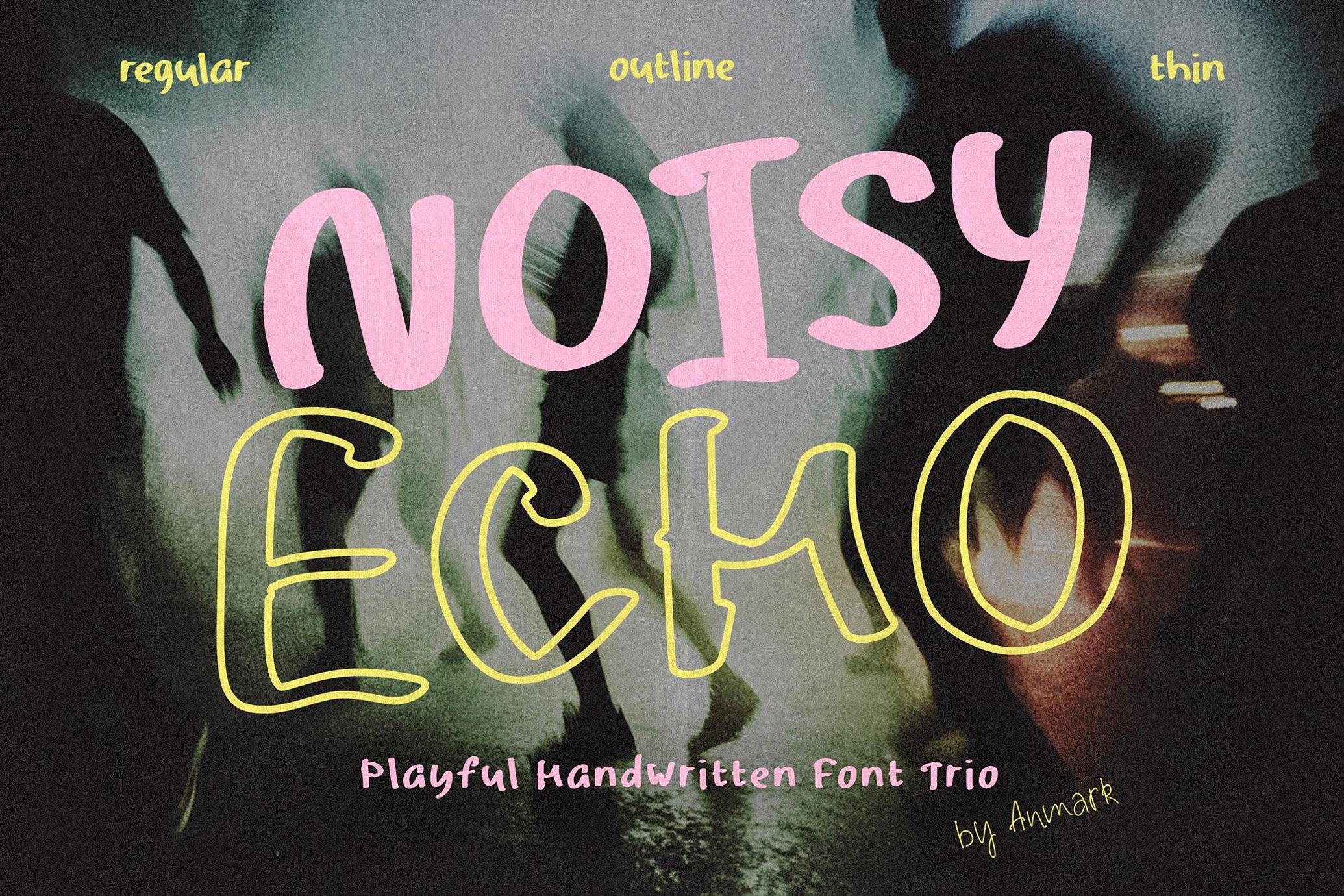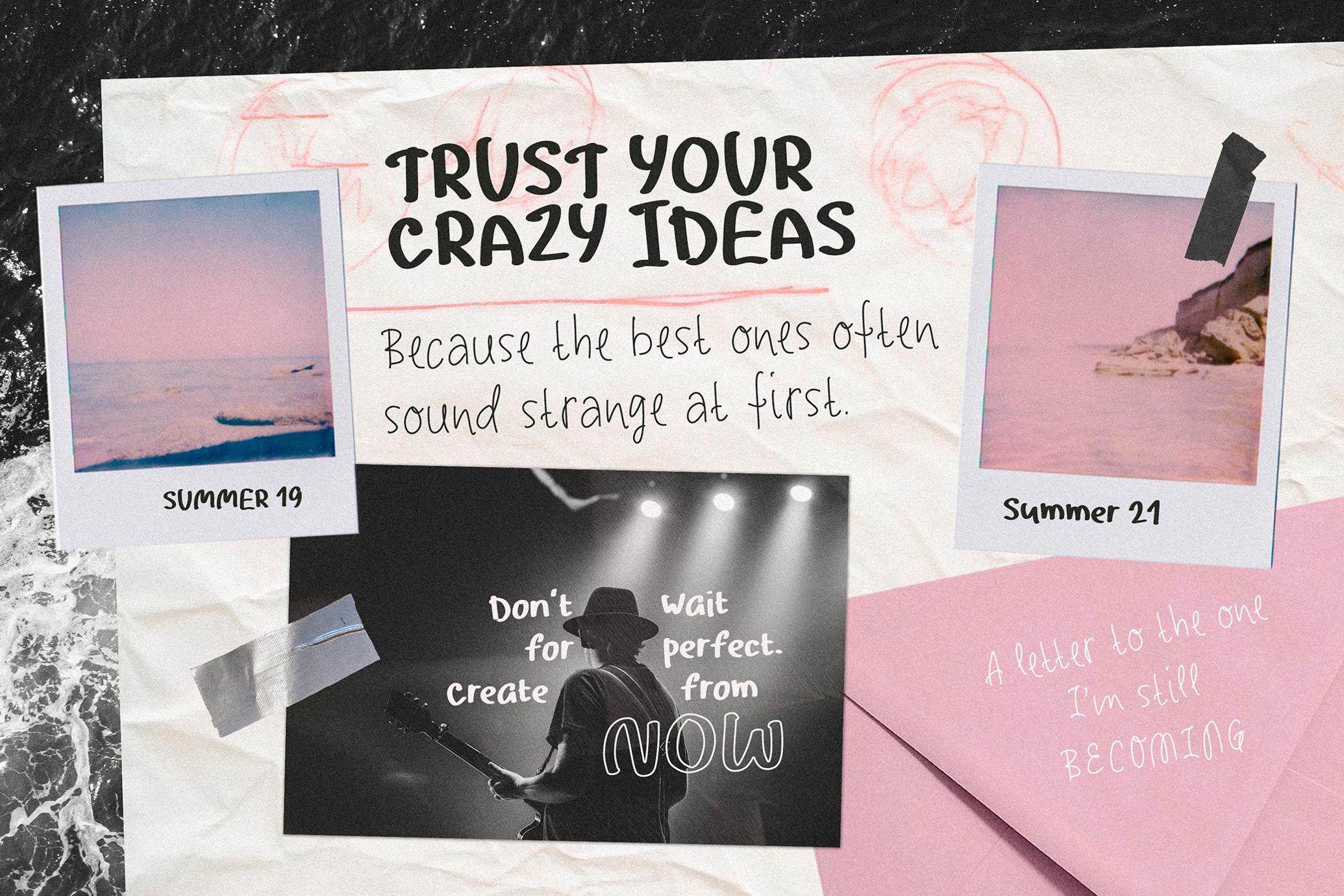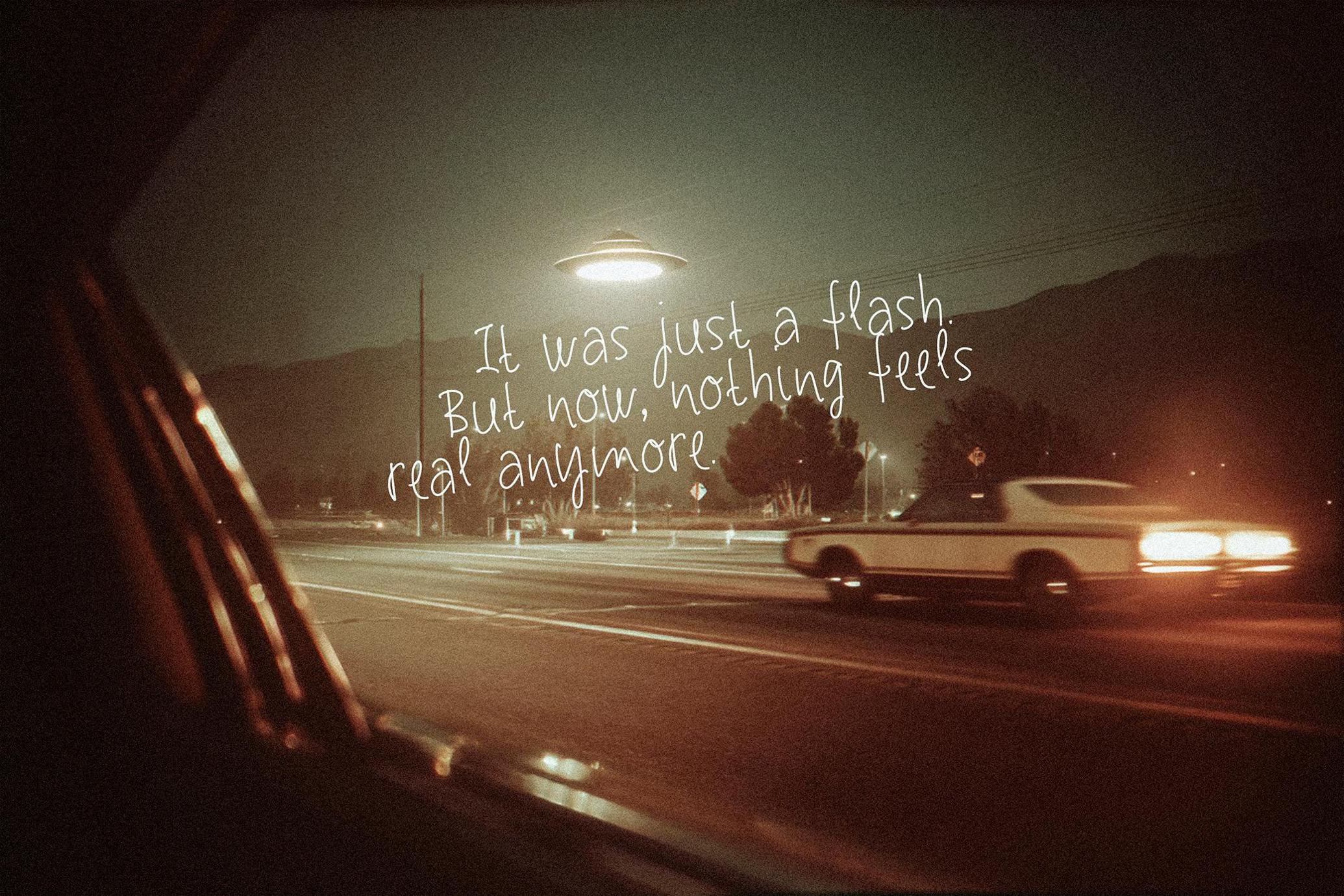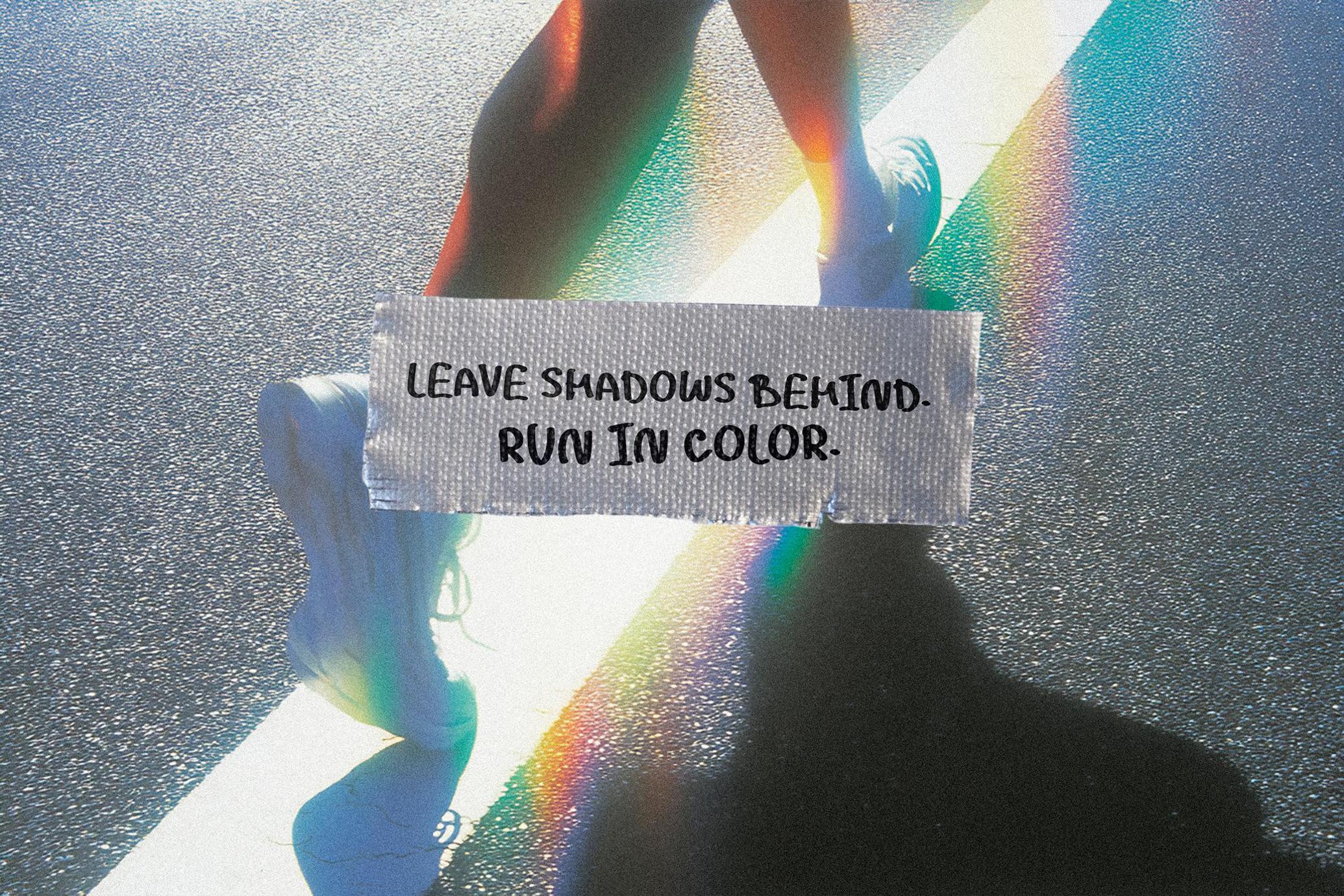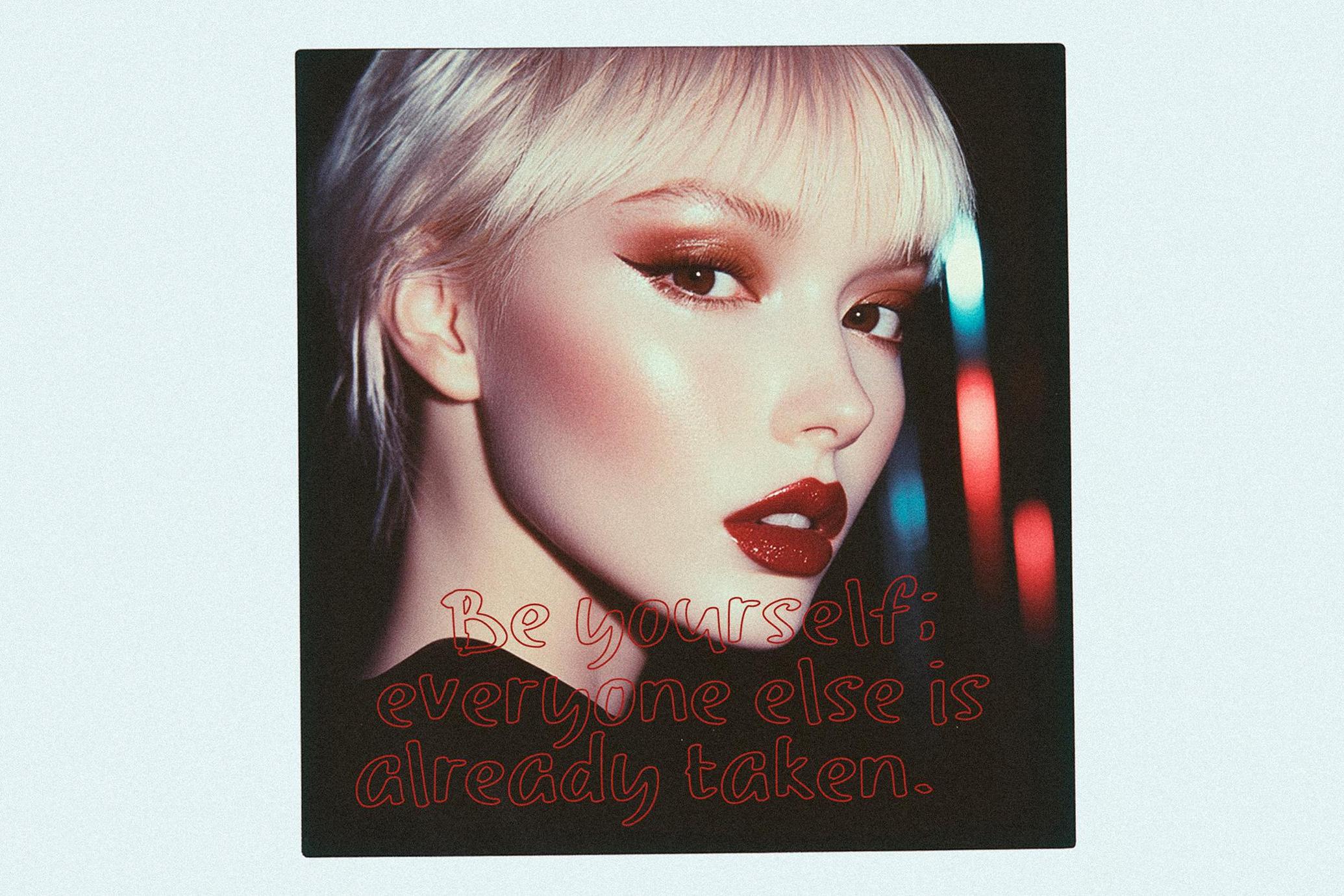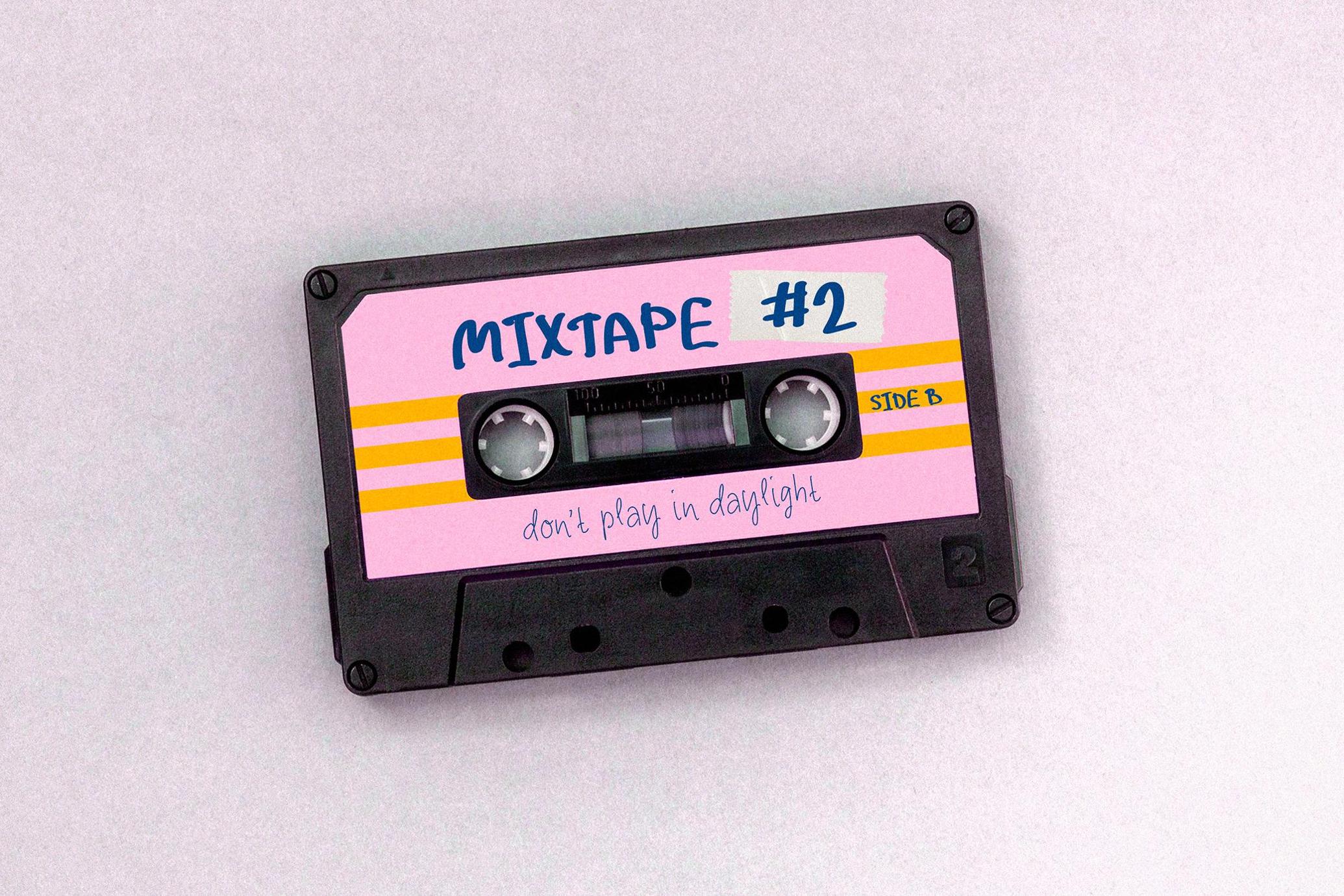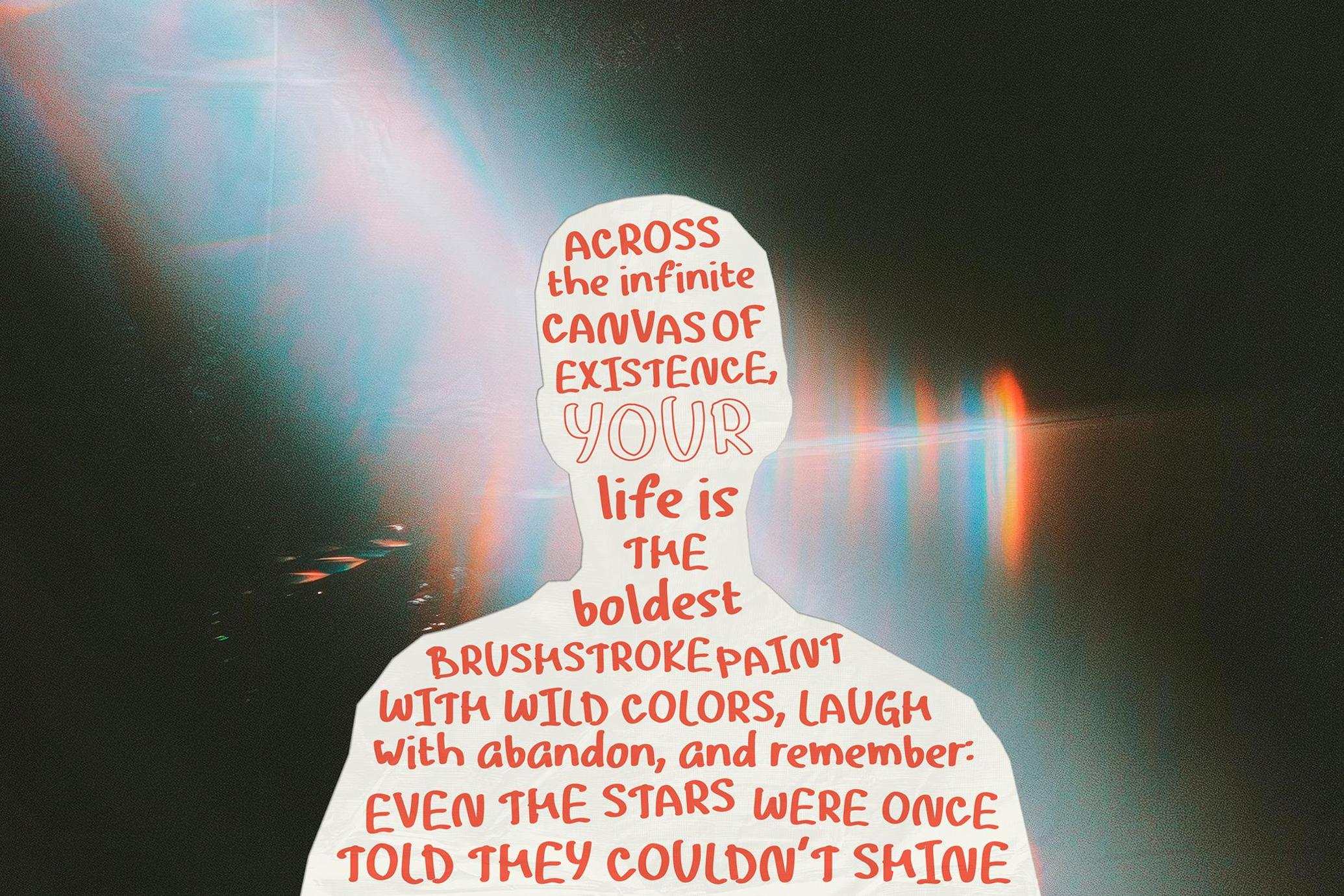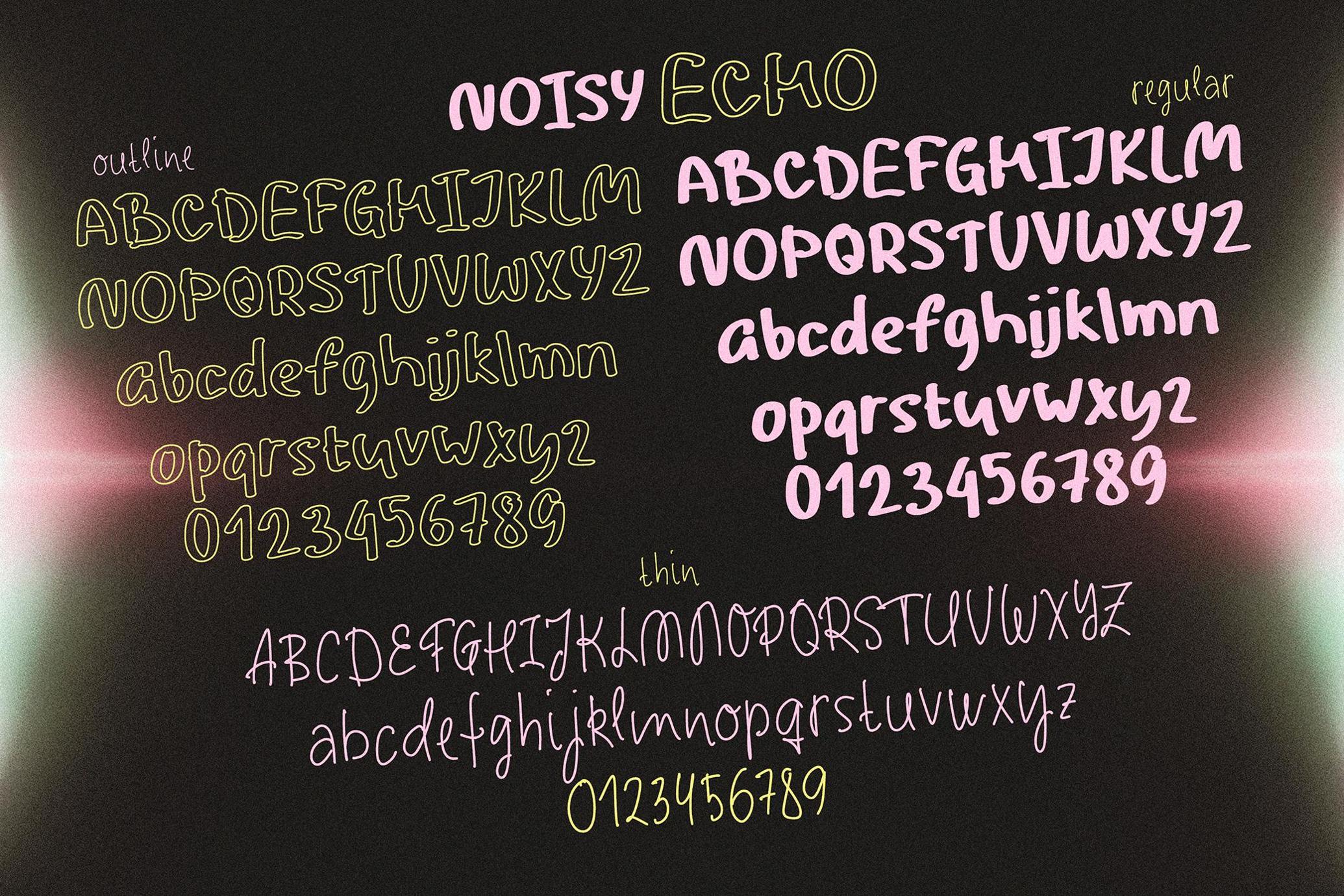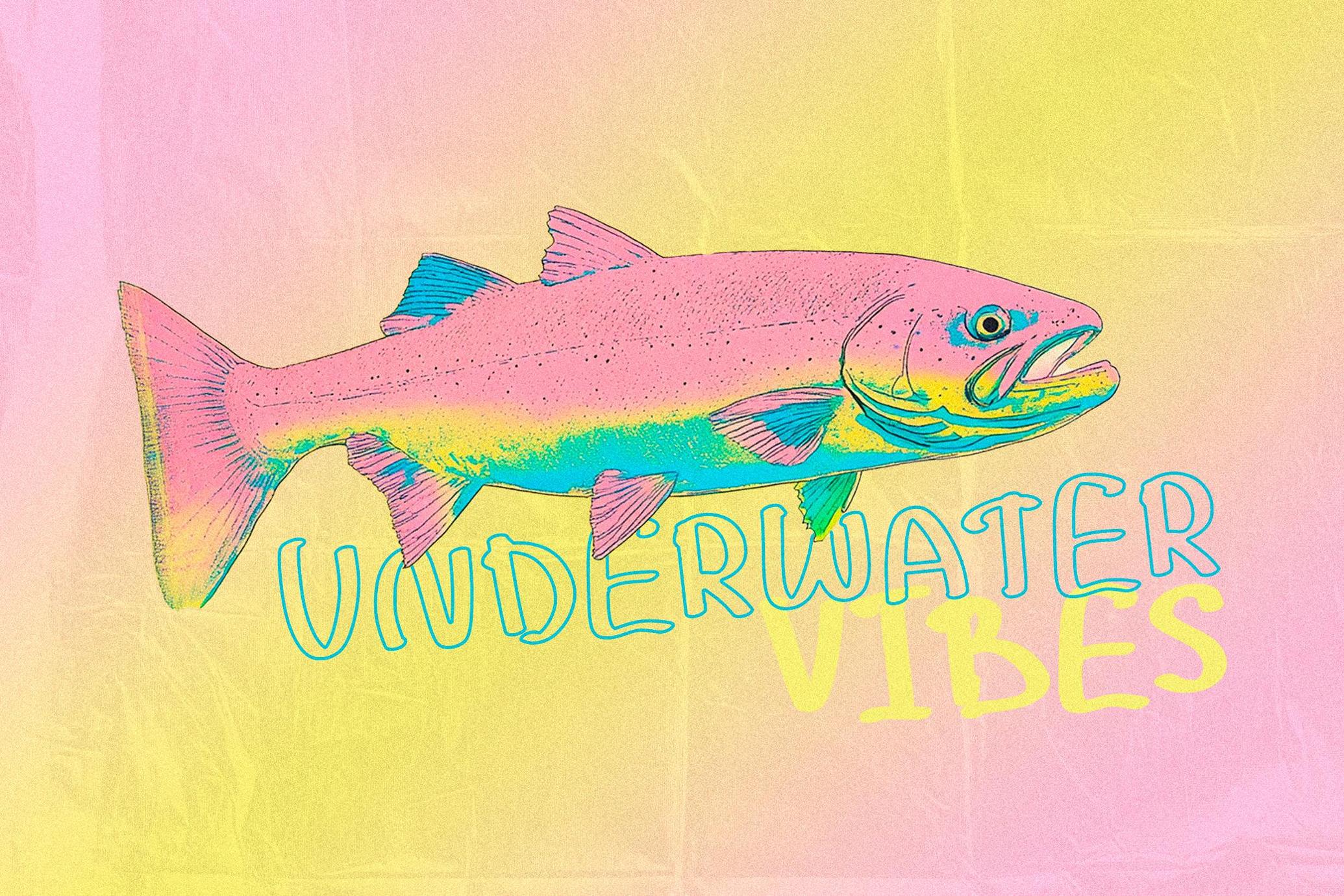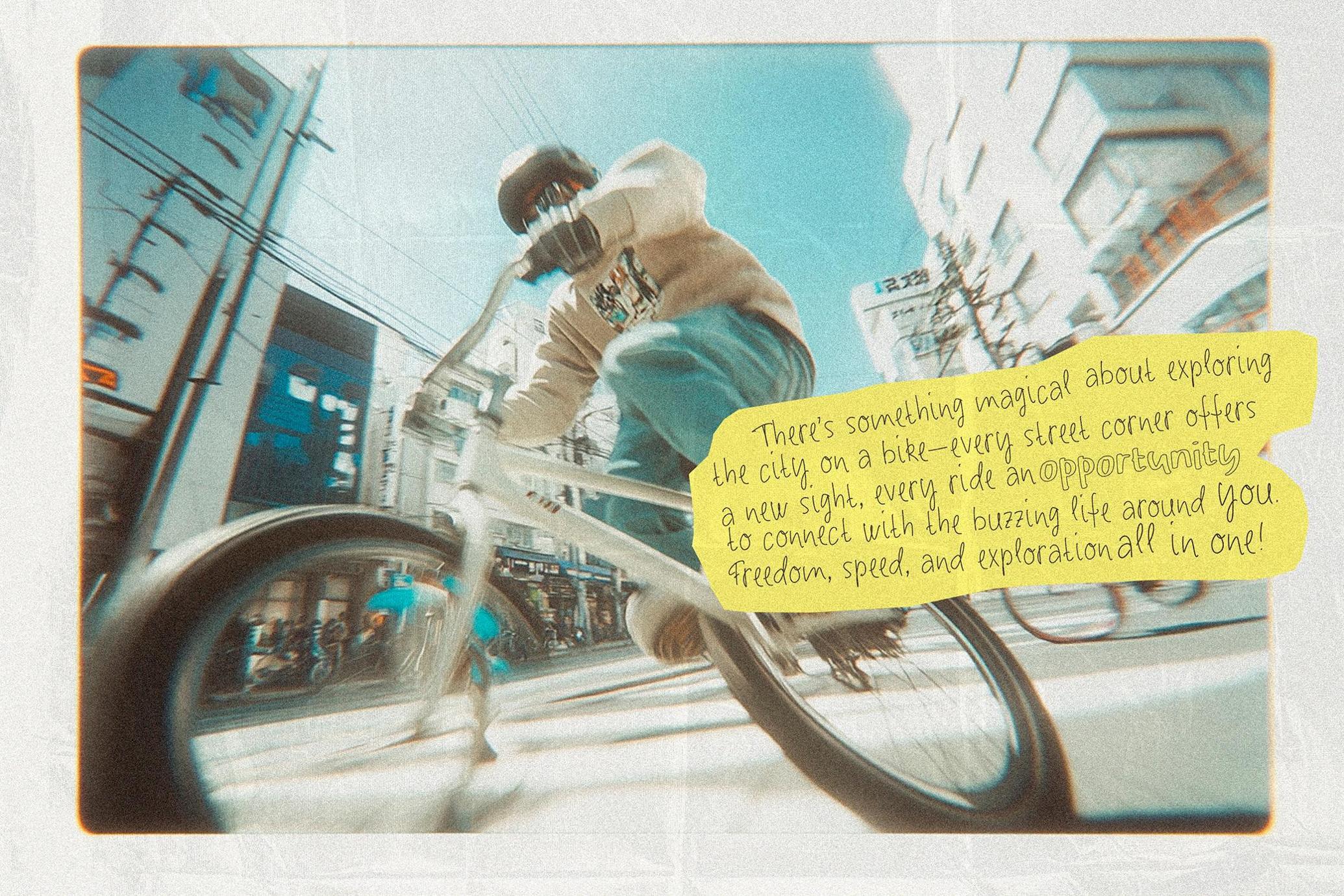
Noisy Echo — Handwritten Font Trio
Loose, bouncy, and undeniably expressive — the Noisy Echo trio doesn’t whisper. Each style carries its voice: the Regular cut is punchy and grounded, the Outline is sketchy with charm, and the Thin version brings a wiry lightness that balances the rest. For each font, there is a complete character set with uppercase and lowercase letters, numbers, punctuation, and multilingual support . Files are provided in OTF, TTF, WOFF, and WOFF2 formats.
Use them solo or layered to build playful contrast across posters, album art, social content, kids’ books, stickers, invitations, lifestyle blogs, event flyers, zines, and bold packaging work. They also hold up well in logos and editorial headlines.